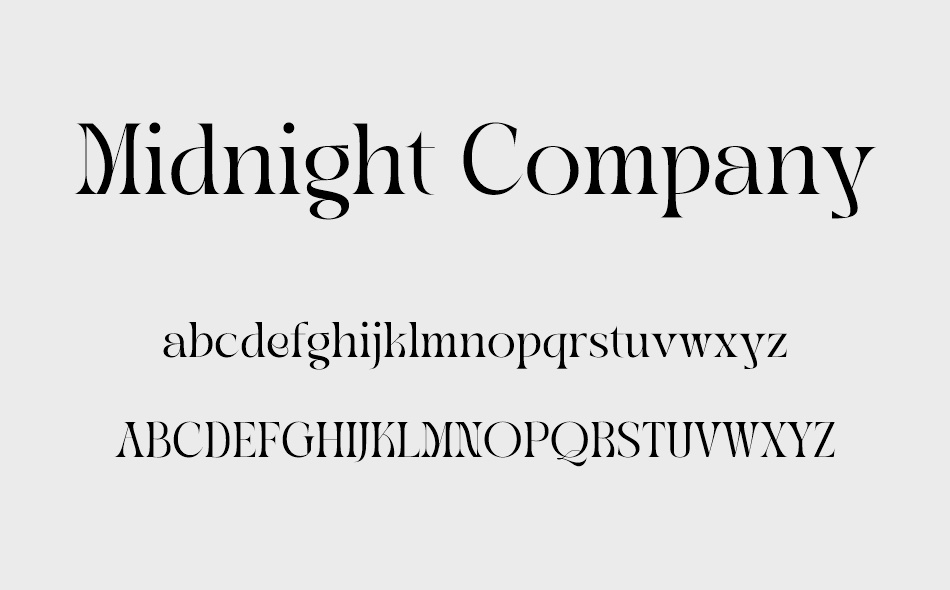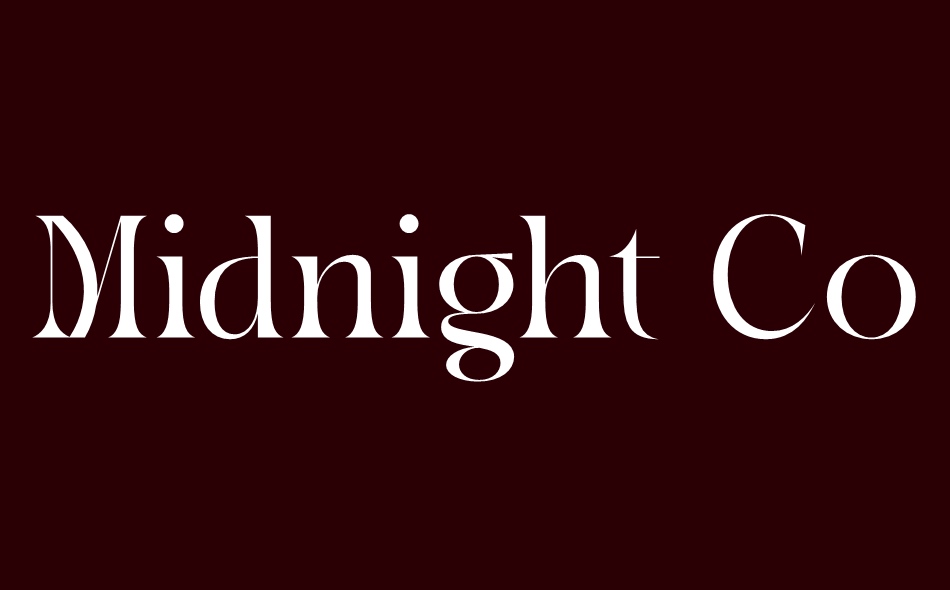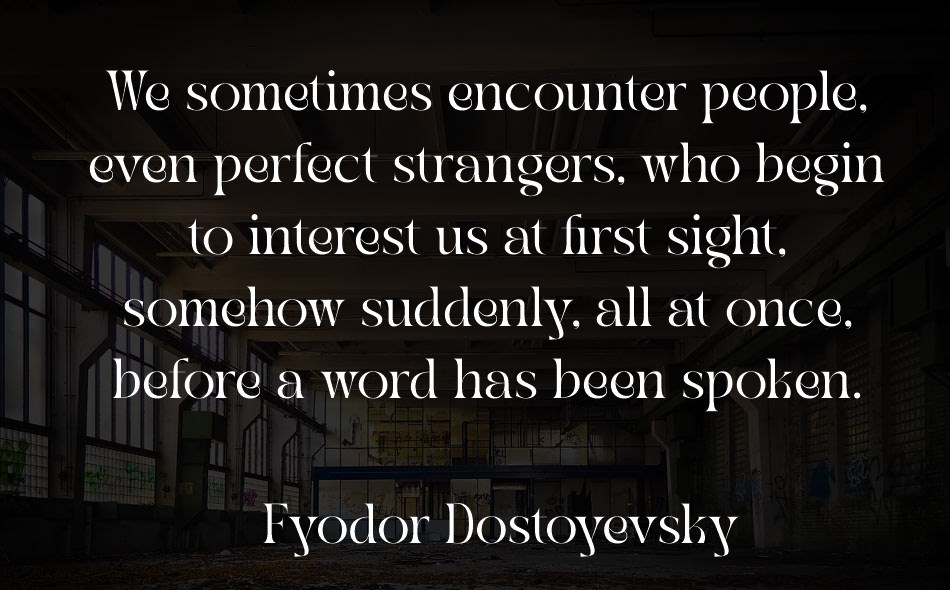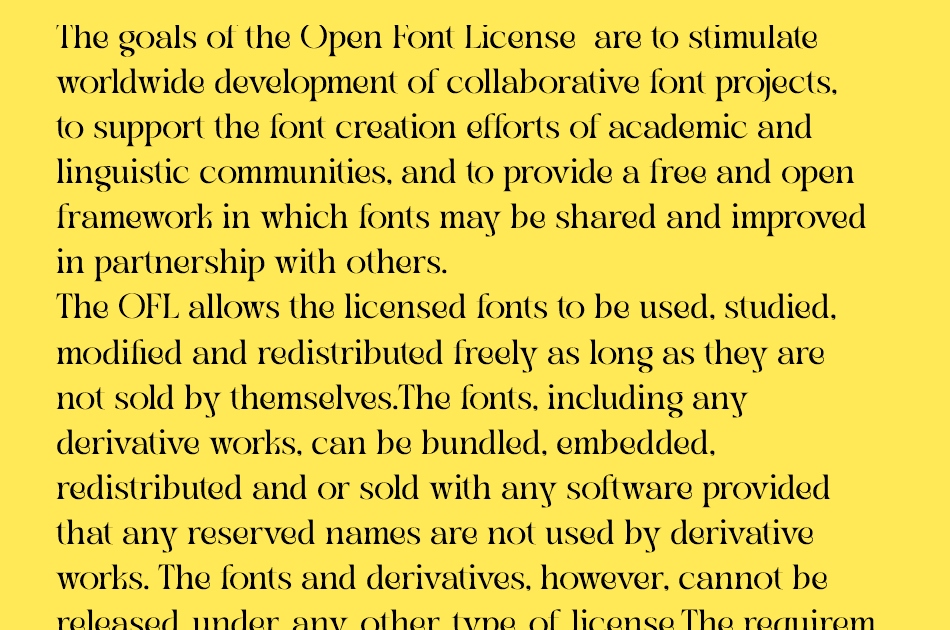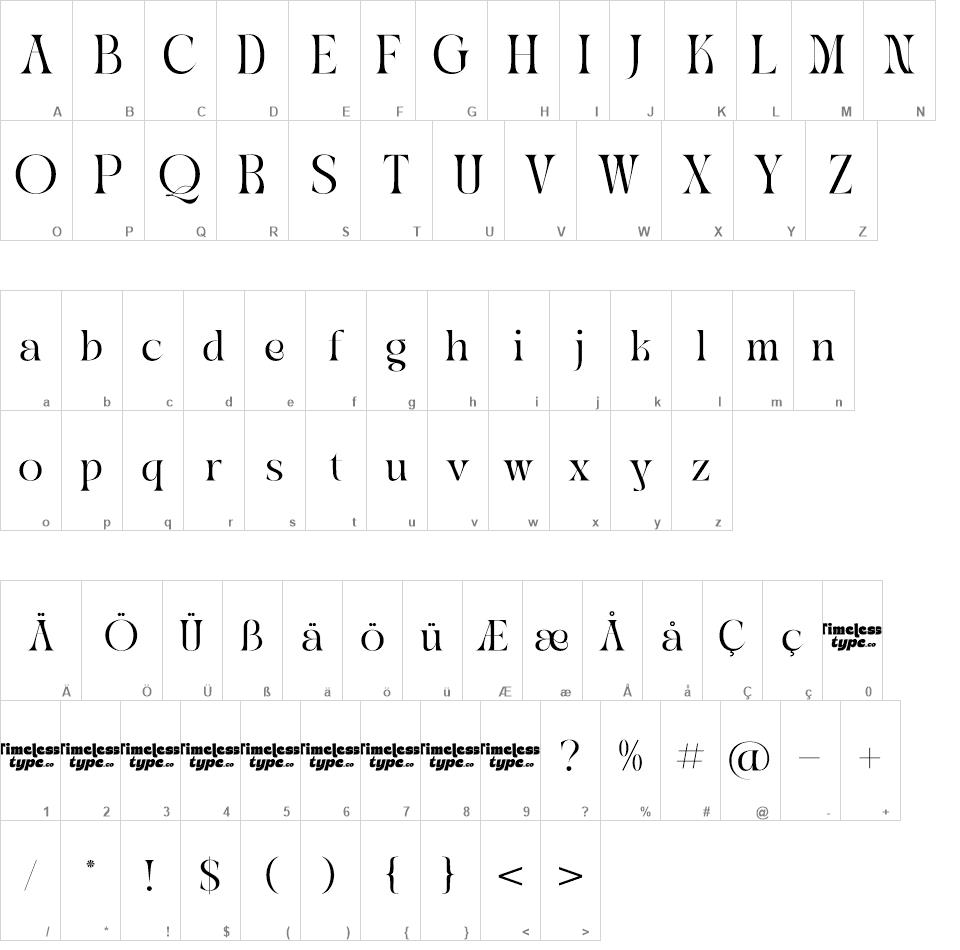
Midnight Company font
Midnight Company - Modern Serif
Unveil a new era of typographic sophistication with Midnight Company - Modern Serif, an exquisitely crafted font designed to captivate and command attention. This display serif embodies a striking balance between timeless elegance and contemporary flair, perfect for designers seeking to infuse their projects with an unmistakable sense of luxury. Its high-contrast letterforms and graceful curves create an iconic visual presence that instantly elevates any design.
Experience unparalleled creative freedom with the expansive character set of Midnight Company - Modern Serif. Boasting 79 ligatures and 16 stylistic alternates among its 427 glyphs, this font offers a wealth of customization options. These intricate details allow for truly unique and bespoke typographic arrangements, ensuring your design stands out with sophistication and originality. Its the ultimate tool for crafting distinctive headlines and impactful display text.
Expand your creative reach across borders with the inherent global adaptability of Midnight Company - Modern Serif. With its extensive multilingual support, Midnight Company - Modern Serif adapts seamlessly across global markets, making it incredibly versatile for international projects. This comprehensive language coverage ensures that your message resonates universally, maintaining its elegant and professional aesthetic wherever its presented.
Position your brand at the pinnacle of design with the impeccable style of Midnight Company - Modern Serif. This font is perfectly suited for luxury branding, high-end packaging, editorial design, fashion magazines, invitations, and sophisticated websites. Elevate logotypes, headlines, and marketing collateral to convey an aura of exclusivity and refinement, leaving a lasting and powerful impact on your audience.